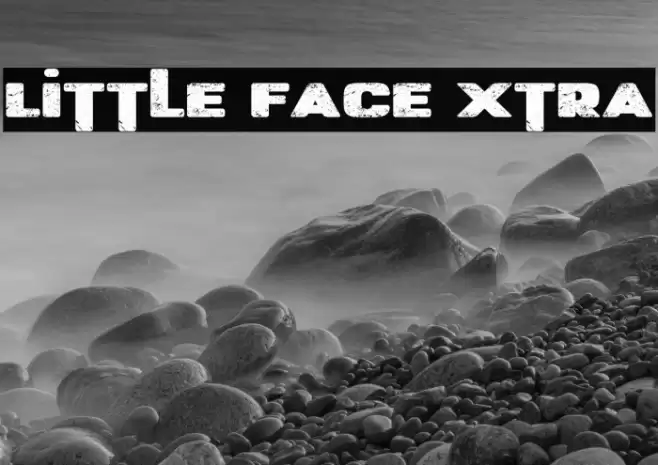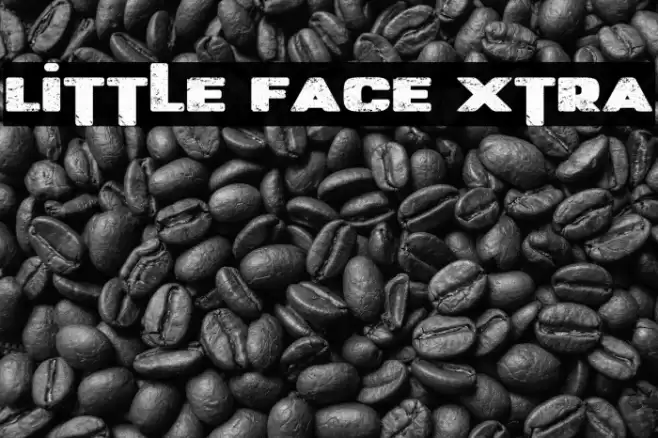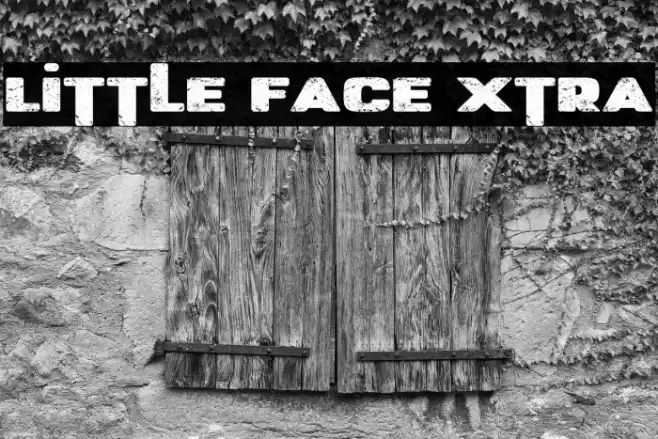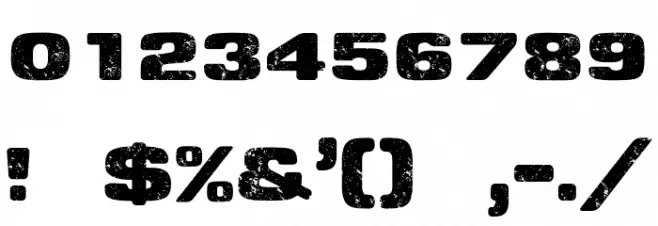
Little Face Xtra Font
Little Face Xtra Description
This font exhibits a bold and distressed style, characterized by its rough, textured appearance that gives it a vintage and rugged feel. The letters are thick and blocky, with a consistent weight throughout, creating a strong visual impact. The distressed texture adds a layer of depth and character, making it ideal for designs that require a gritty or worn look. The uppercase and lowercase letters maintain a uniform width, while the numbers and special characters follow the same stylistic approach, ensuring cohesion across all elements. The font's boldness and unique texture make it stand out, suitable for projects that aim to convey strength and authenticity.
A bold, distressed font with a vintage, rugged appearance from Uncategorized fonts.
- Font: Little Face Xtra
- Weight: Xtra
- Proposed Projects: Ideal for posters, album covers, branding for outdoor or adventure-themed products, and any design needing a strong, vintage aesthetic.
- Overall Style: Vintage